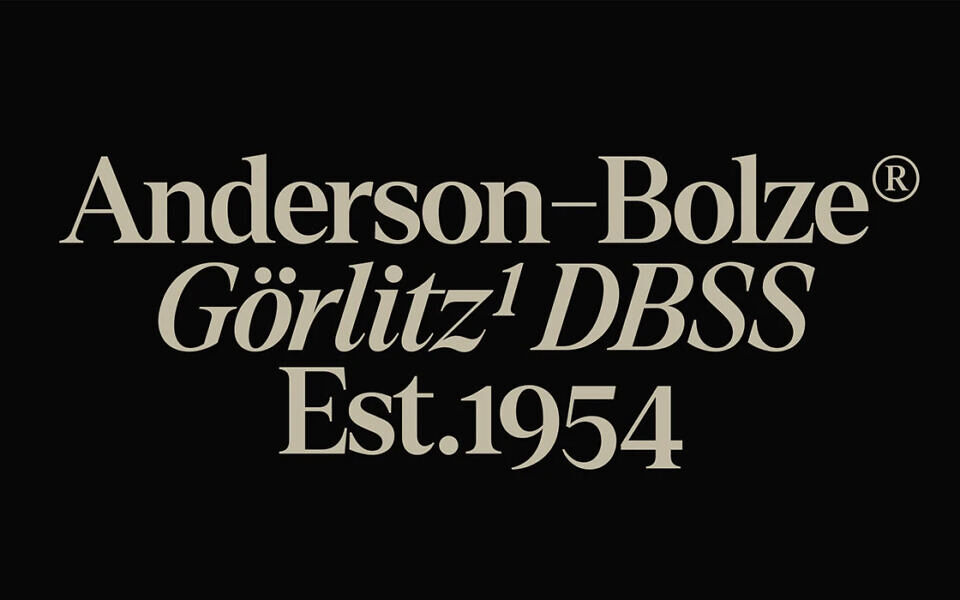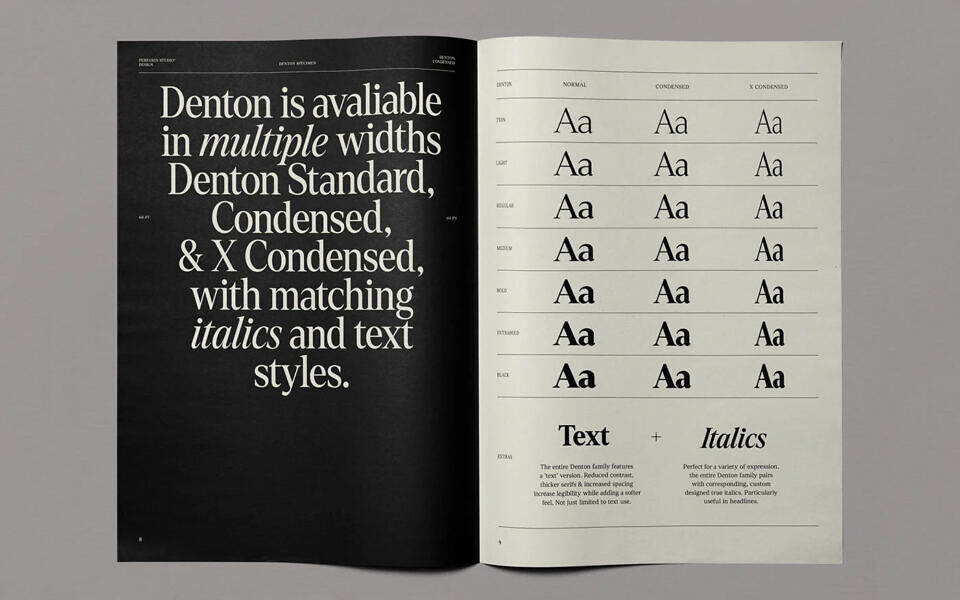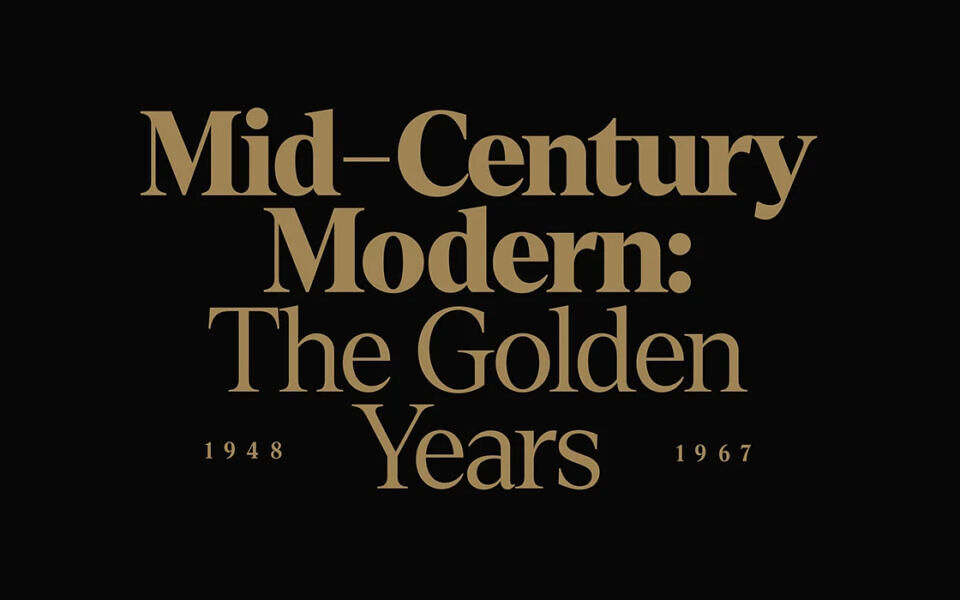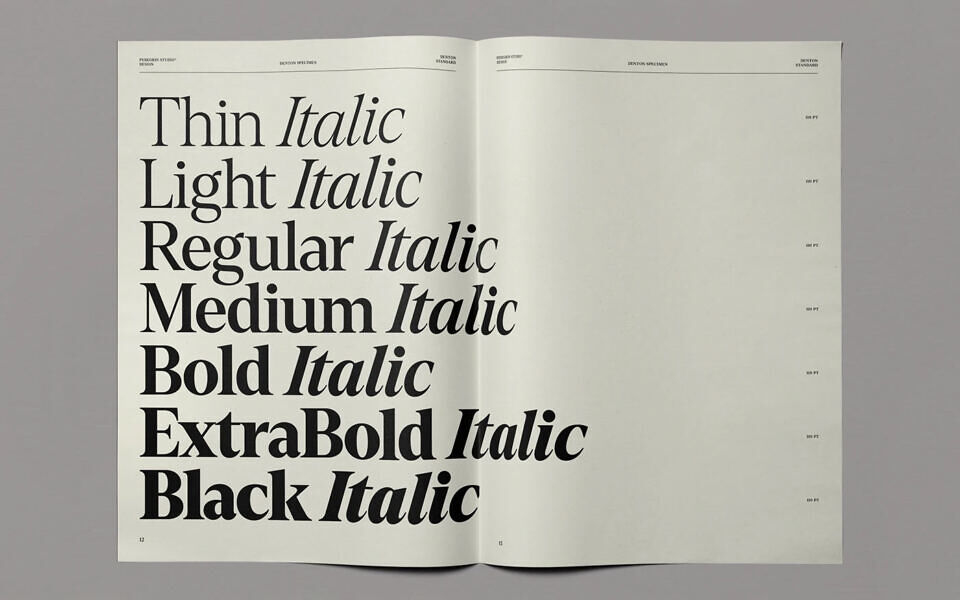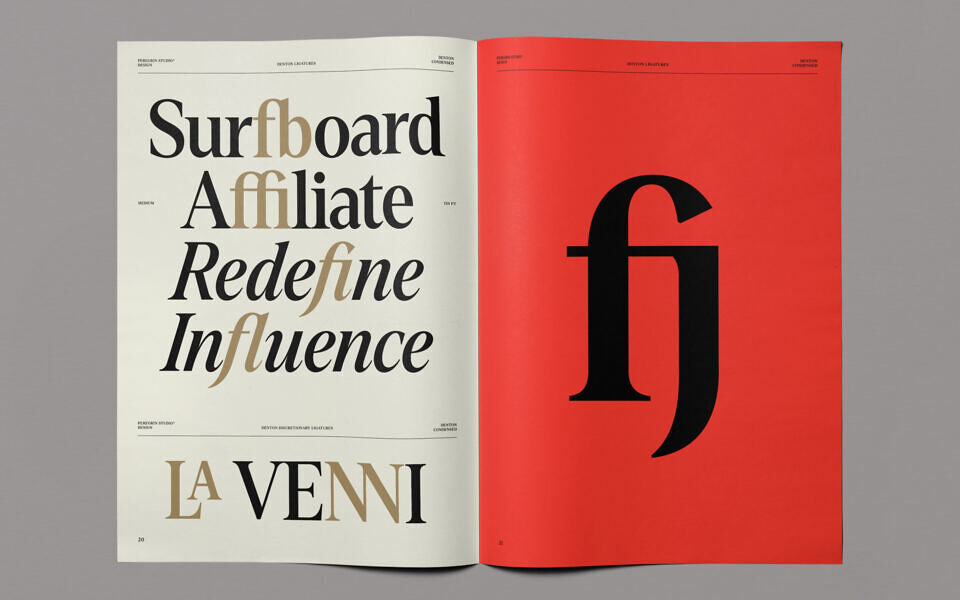
Denton is a typeface full of warmth, bringing expressive 70s era design into the 21st century. Type design was liberated in the 1950s, with the birth of phototypesetting, allowing designers to shake off the restraints of unyielding metal letters and their standard lead sizes.
A new design aesthetic emerged in the following decades, super-tight kerning, overlapping serifs and carefully refined letter interactions became commonplace. This warm, free, distinct feeling gave us the core from which Denton is built, encompassing the style into a modern superfamily that can meet all the needs of todays brands.
With this update, Denton has been expanded and now comes in 86 styles, including weight and width variables, display and text subfamilies and true italic counterparts. Denton is free to try (including the variable fonts).